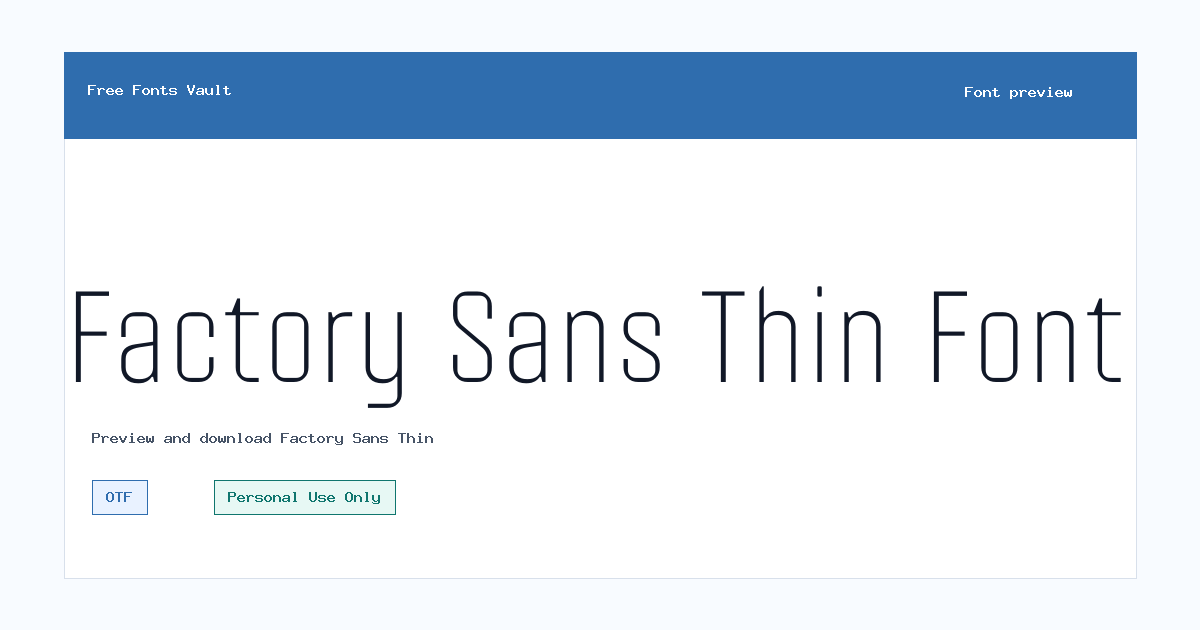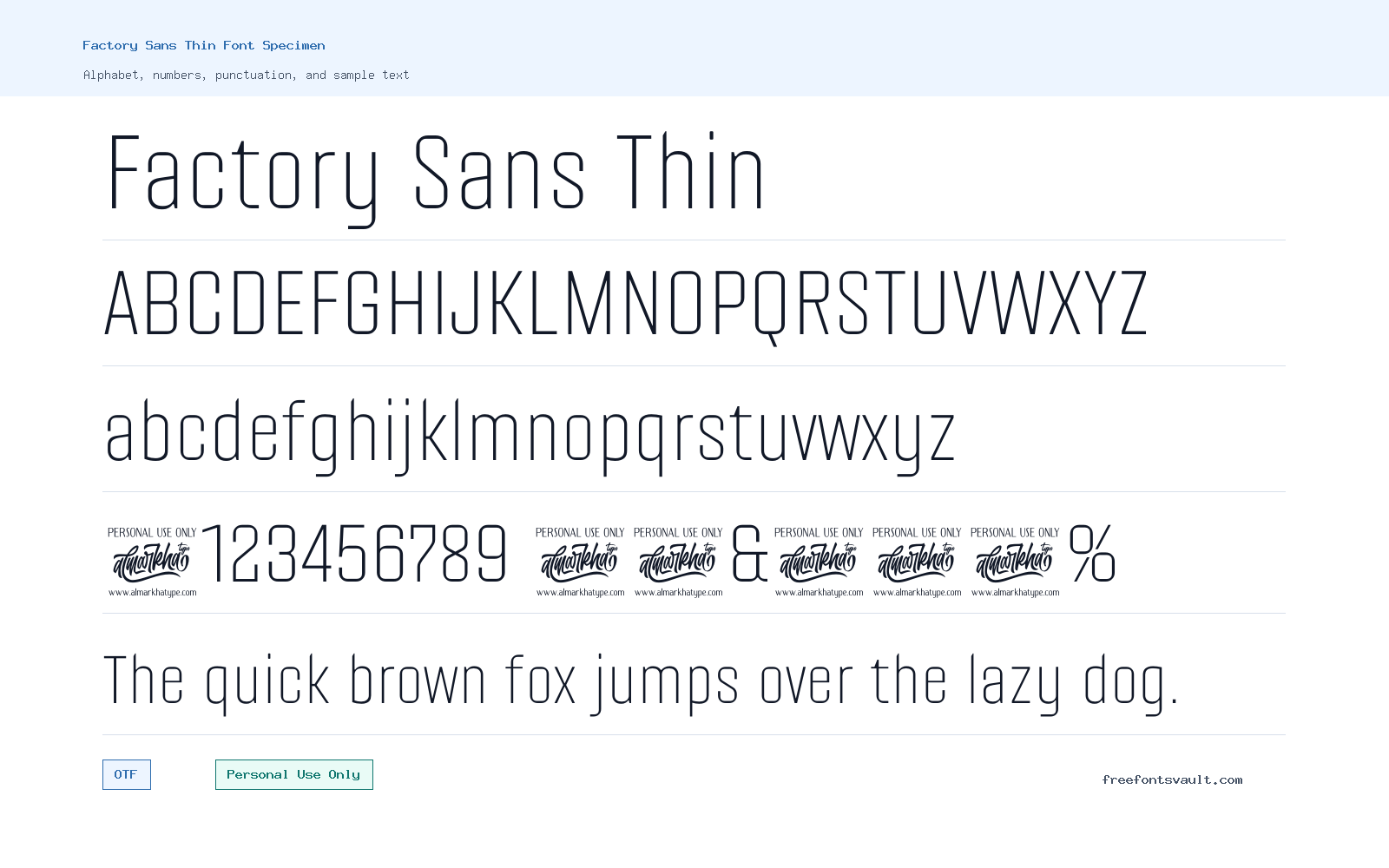
Factory Sans Thin
- Designer Rivo Dwi Adriansyah, Abdul Malik Wisnu, Almarkhatype Team
Factory Sans Thin is a light-weight sans serif font with a clean, narrow-feeling presence that works best when you want type to look modern without becoming loud. Its thin 100-weight style is suited to display use, short headings, logo drafts, posters, and layout mockups where the lettering has room to breathe.
About Factory Sans Thin
Factory Sans Thin is the thin style of the Factory Sans Serif Font Family. The available font file is an OTF file, with a normal style and a 100 font weight. That makes it a good choice when you need a very light sans serif look rather than a heavy headline face. Thin fonts can feel refined and minimal, but they also need careful sizing. In small text, low contrast, or crowded layouts, fine strokes can lose clarity quickly. For that reason, Factory Sans Thin is better treated as a display font for names, titles, covers, banners, and selected interface mockups rather than as a long paragraph font.
Use the preview box to test the exact words you plan to design with, especially if you are working on a logo, poster title, packaging concept, or social graphic. Short words, uppercase text, and generous spacing may show the thin structure more clearly, while long sentences may need a heavier companion font for readability. For web mockups, test it at large sizes first and check how it looks on light and dark backgrounds. If the strokes feel too delicate, pair it with a regular or medium sans serif for body copy, labels, menus, or supporting text.
- Thin 100-weight sans serif style for clean display typography
- Best used at larger sizes where the fine strokes remain clear
- Useful for minimalist headings, logo concepts, posters, and brand mockups
- Logo drafts and wordmark experiments
- Clean website hero headings in mockups
- Fashion, portfolio, or editorial-style layouts
- Packaging concepts and label design tests
- Social media graphics with short text
- Minimal presentation covers
- Large display typography where thin strokes have enough space
Because this is a thin sans serif, keep it large, give it enough letter spacing when needed, and avoid placing it over busy images. For logos and posters, test both uppercase and title case before committing. For web or UI layouts, use Factory Sans Thin for large headlines and pair it with a more readable sans serif for navigation, buttons, captions, and body text. A neutral regular-weight sans serif will usually be the safest pairing because it supports the thin display style without competing with it.
What kind of font is Factory Sans Thin?
Factory Sans Thin is a thin sans serif font. The available variant is a normal regular-style OTF file with a 100 font weight.
What is Factory Sans Thin best used for?
It is best for short display text such as logo drafts, poster titles, website hero headings, packaging concepts, and clean layout mockups. It is not ideal for long paragraphs because thin strokes can become hard to read at small sizes.
How should I pair Factory Sans Thin with other fonts?
Pair it with a simple regular or medium-weight sans serif for body text and interface details. Keep Factory Sans Thin for larger headings or accent typography so the design stays readable.
Why does the font look too light in my design?
Thin fonts can disappear when used too small, placed over detailed images, or set in low contrast. Increase the size, add spacing, choose a calmer background, or use a heavier companion font for smaller text.